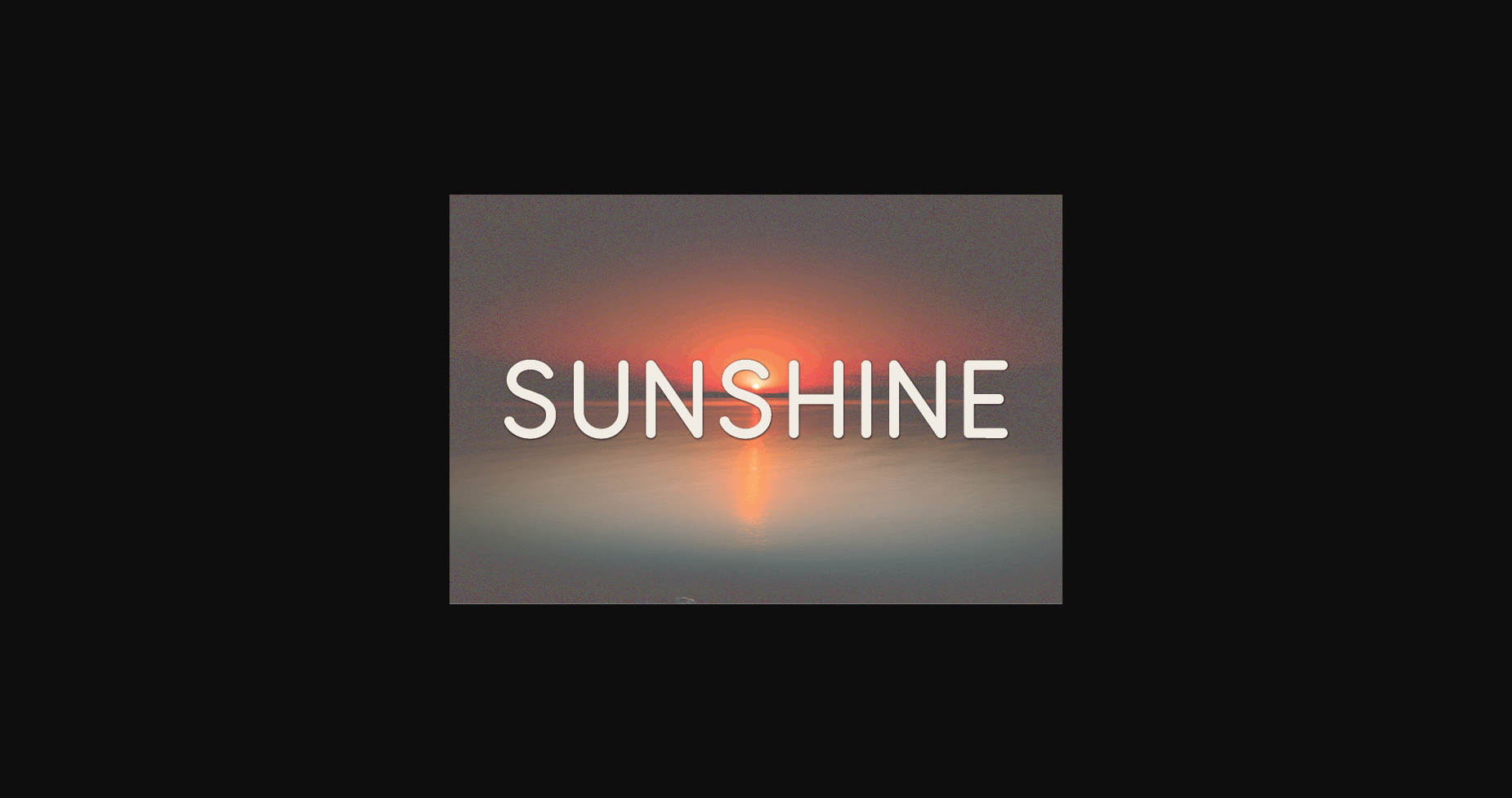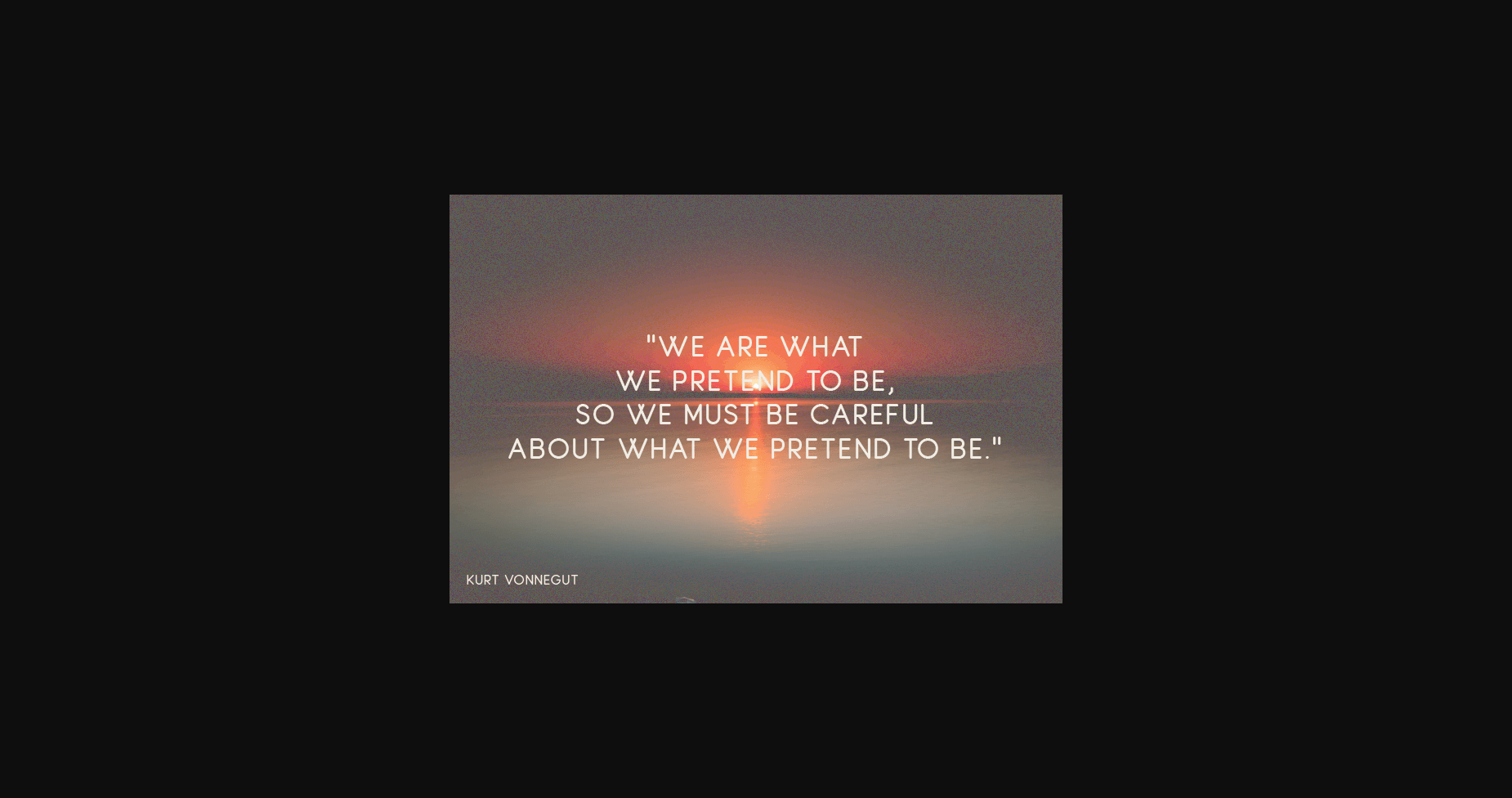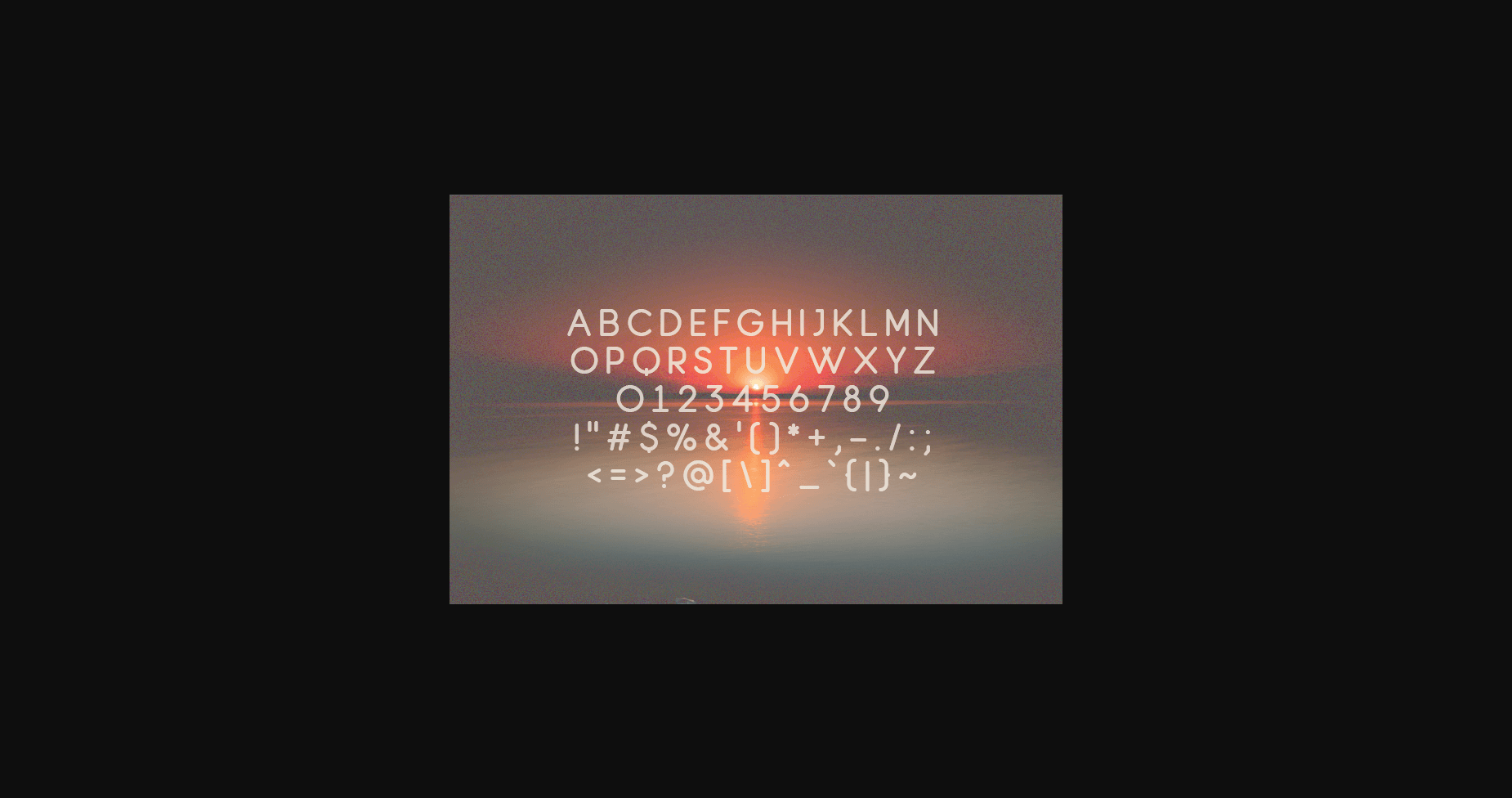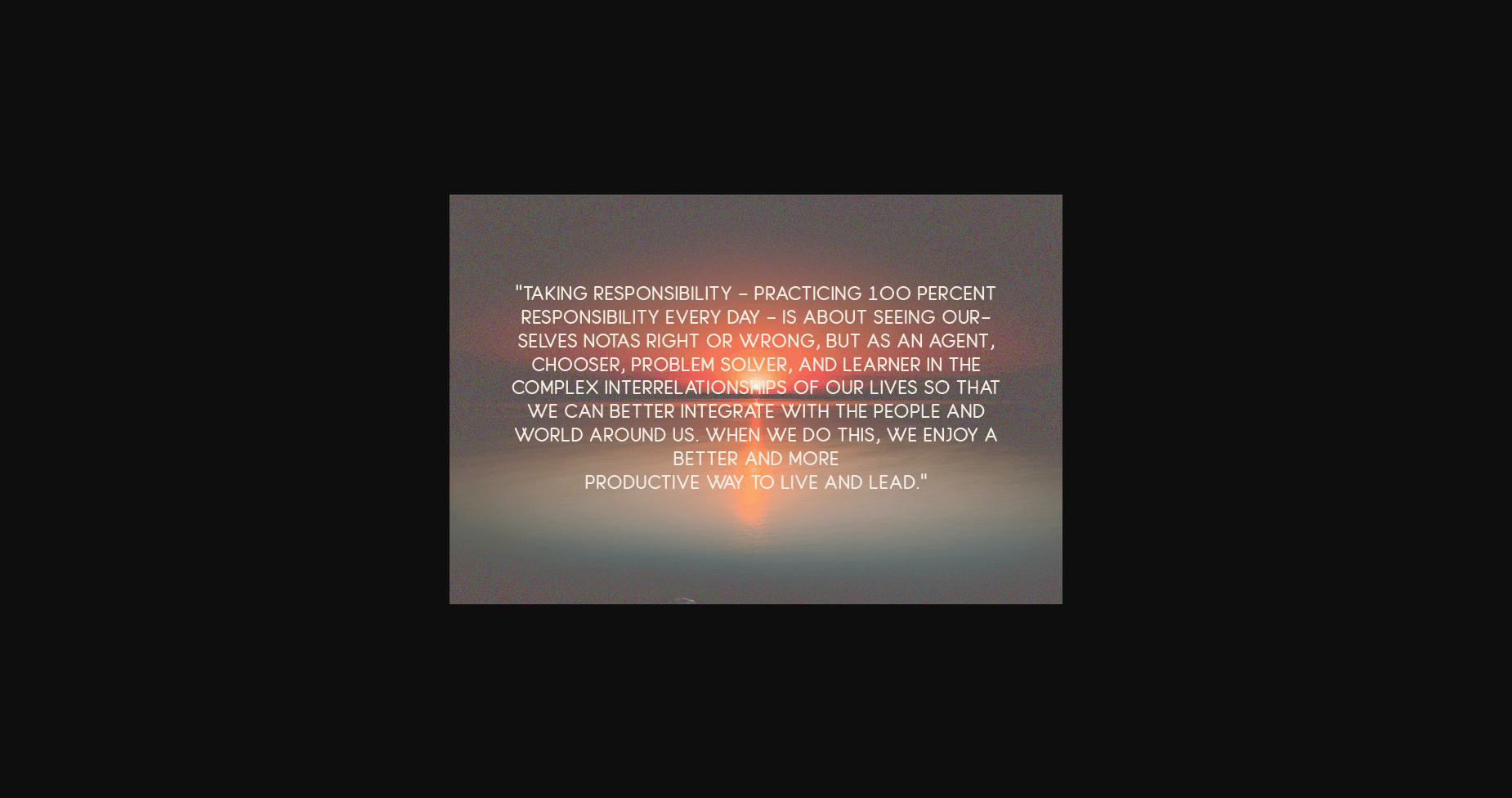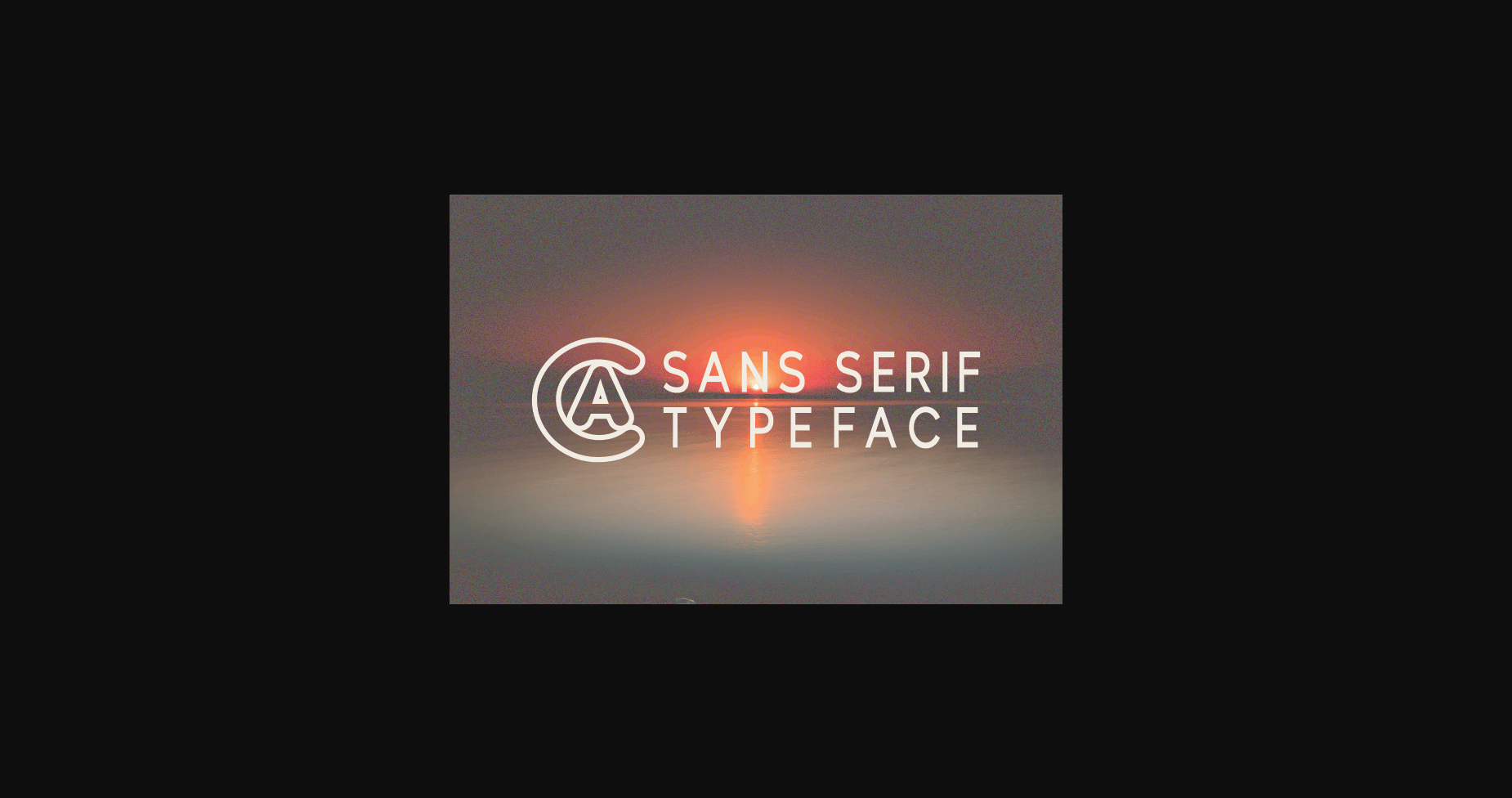
About Sunshine Font
Introducing Sunshine, a modern, classy sans serif typeface.
An extremely versatile font, perfect for logos, weddings, invitations, quotes, advertisements, print, magazines, and more!